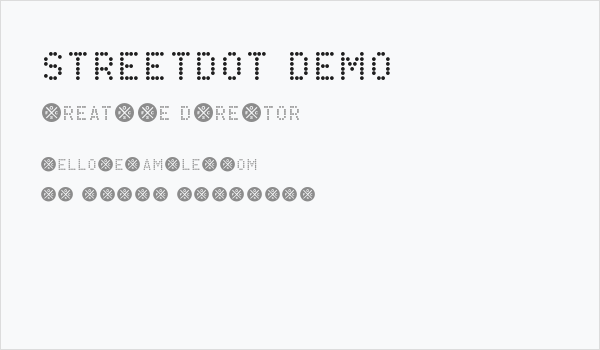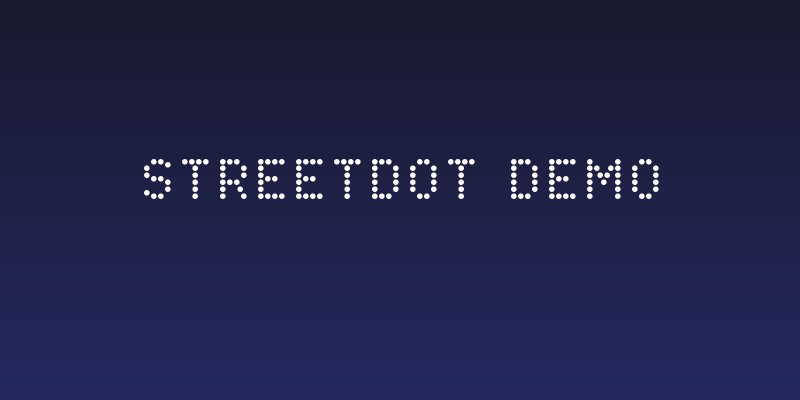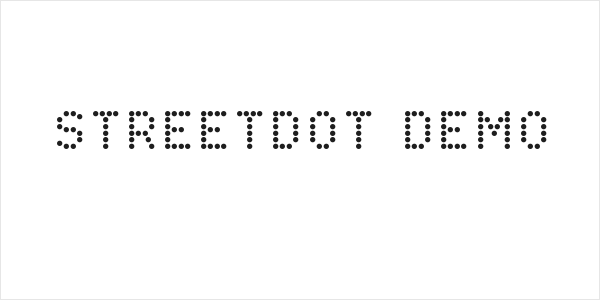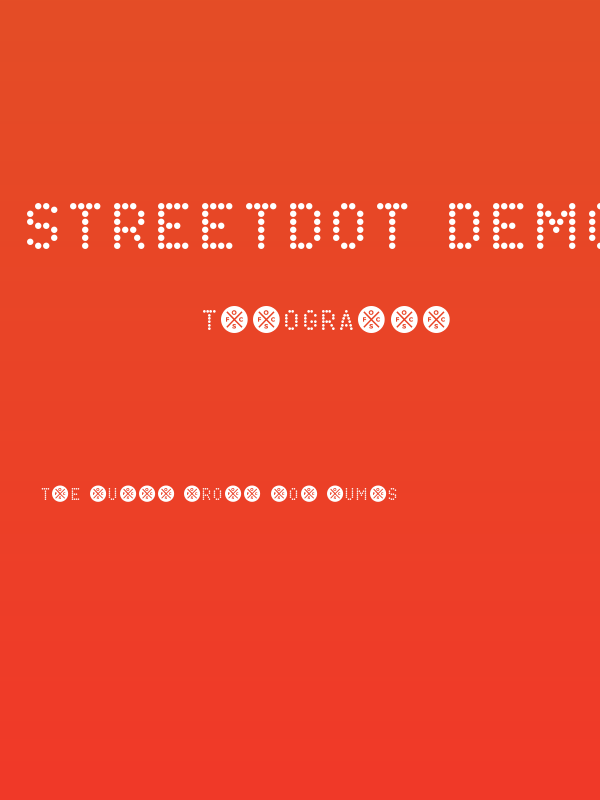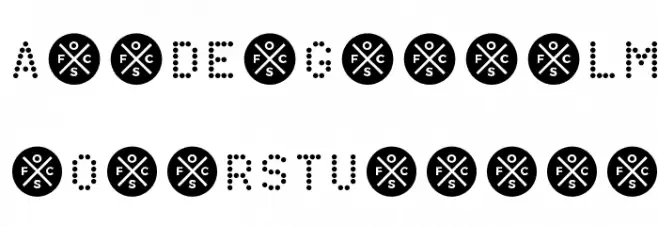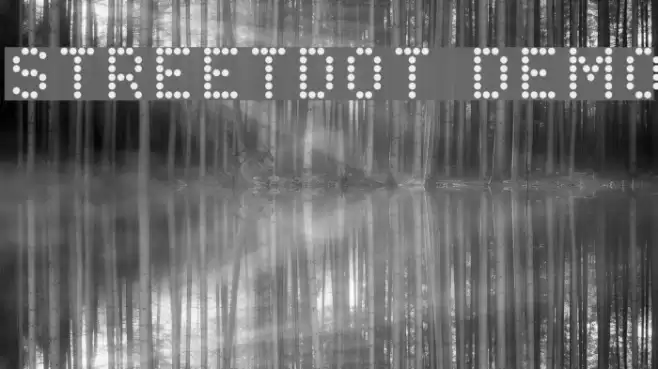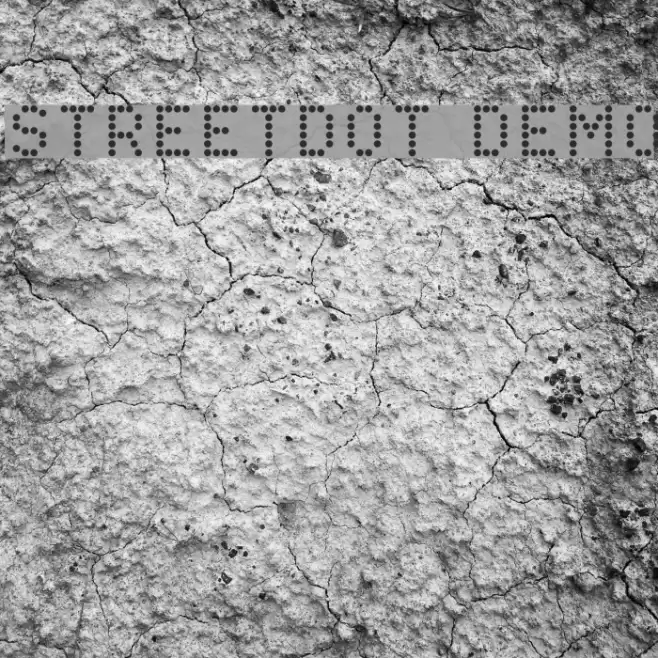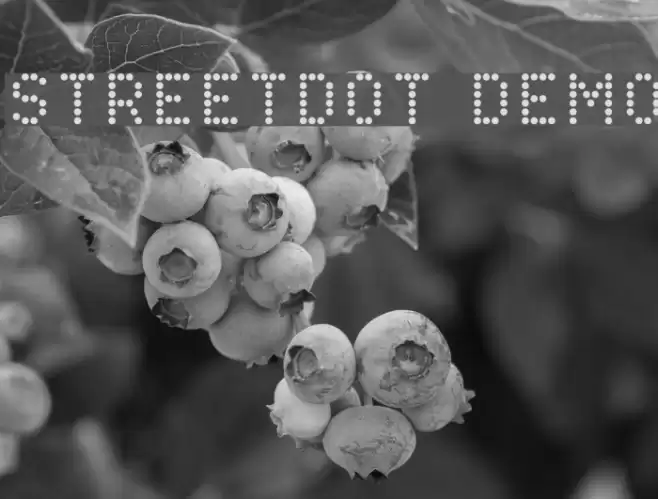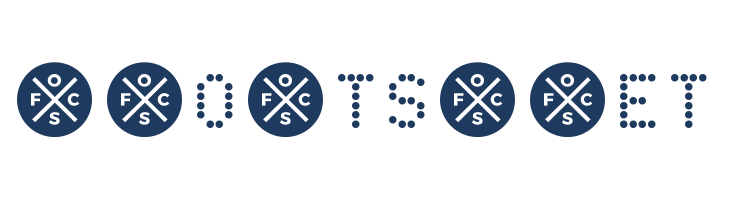
StreetDot Demo Font
This font is a unique and creative design composed entirely of dots arranged to form each character. Its playful and modern aesthetic makes it stand out, offering a distinctive look that is both eye-catching and innovative. The characters are evenly spaced, with each letter and number crafted from a grid of dots, providing a uniform and consistent appearance. This font is ideal for projects that require a contemporary and artistic touch, such as digital art, modern branding, or creative advertising. Its dotted style gives it a playful and informal vibe, making it suitable for use in designs that aim to convey a sense of fun and creativity.
| Proposed Projects | Ideal for digital art, modern branding, creative advertising, and playful design projects. |